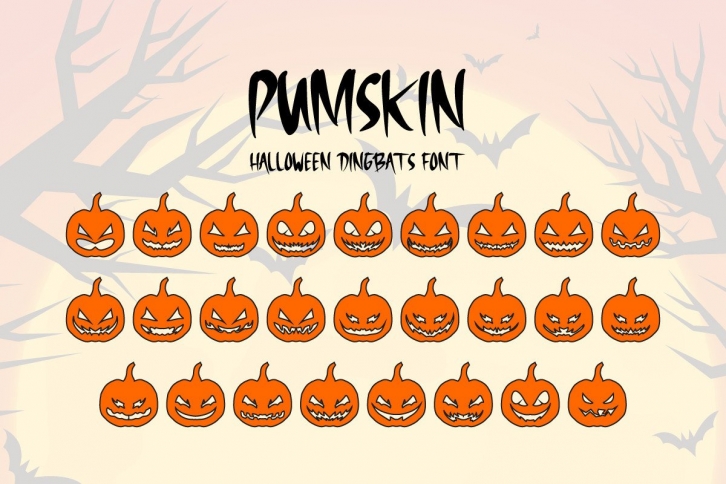
Pumskin is a dingbat font with a Halloween theme. with a spooky and funny pumpkin face glyph character. This font is suitable for various purposes such as, t-shirts, crafts, stickers, labels, logos, decorations, and much more